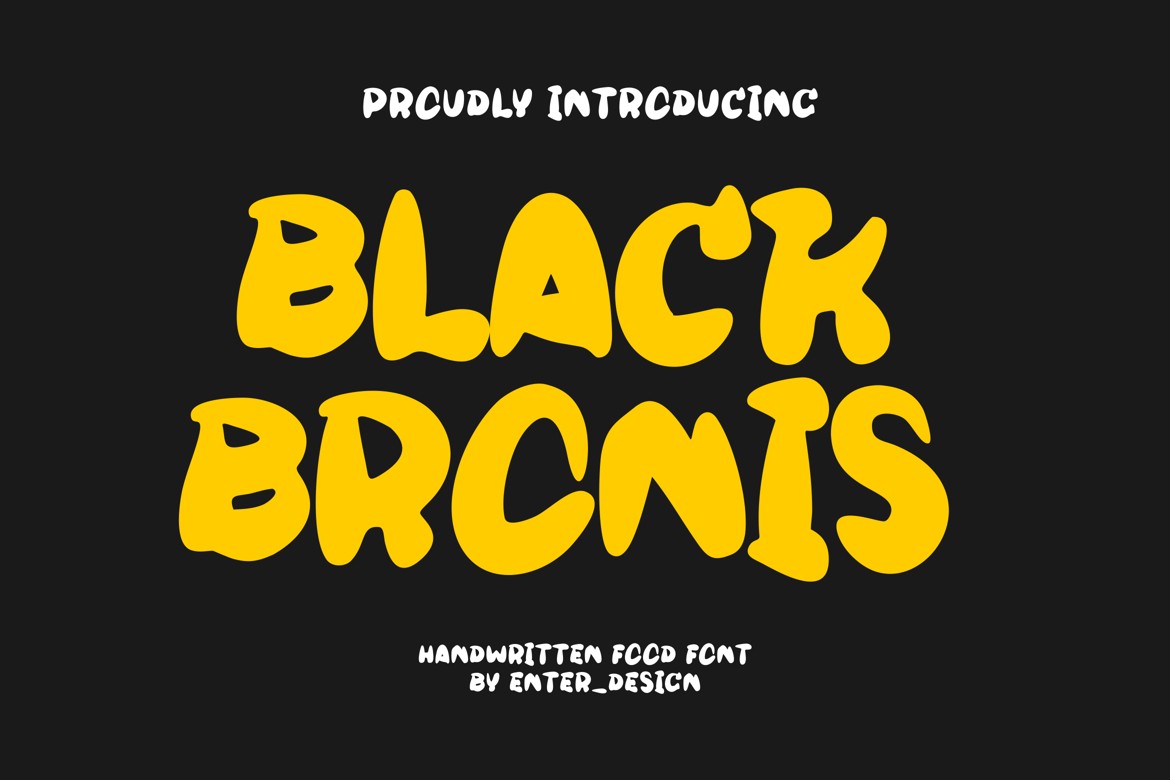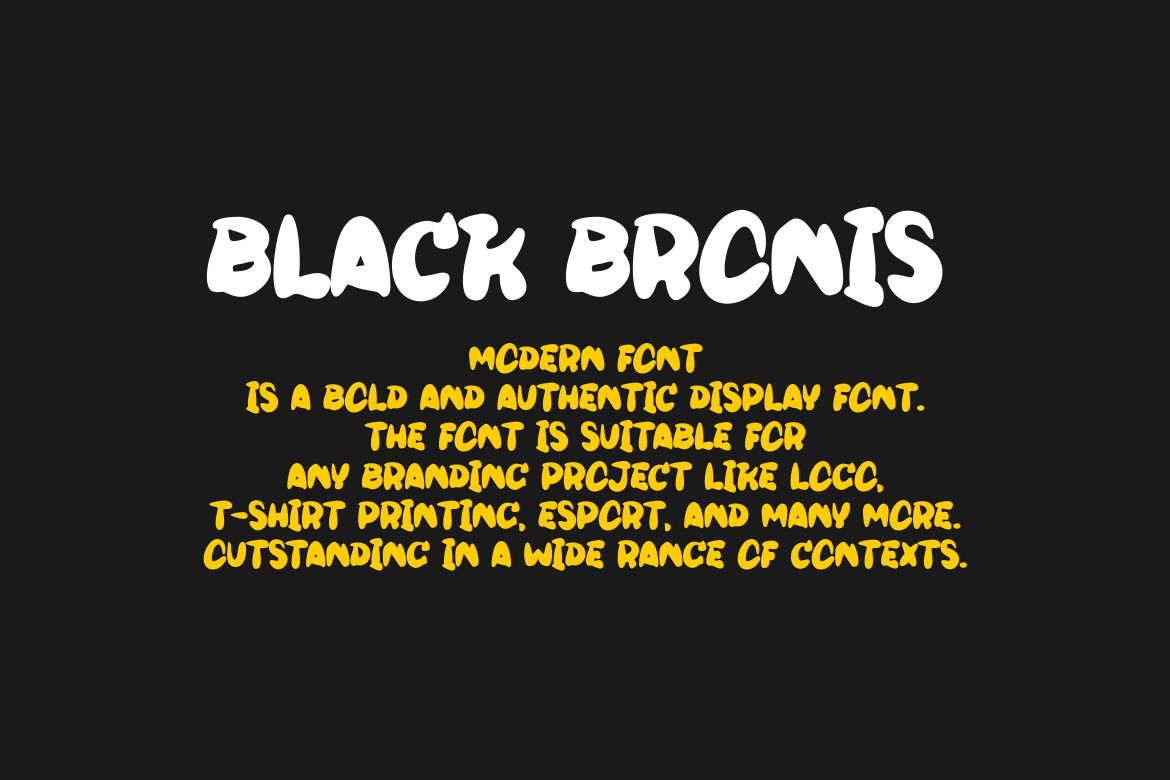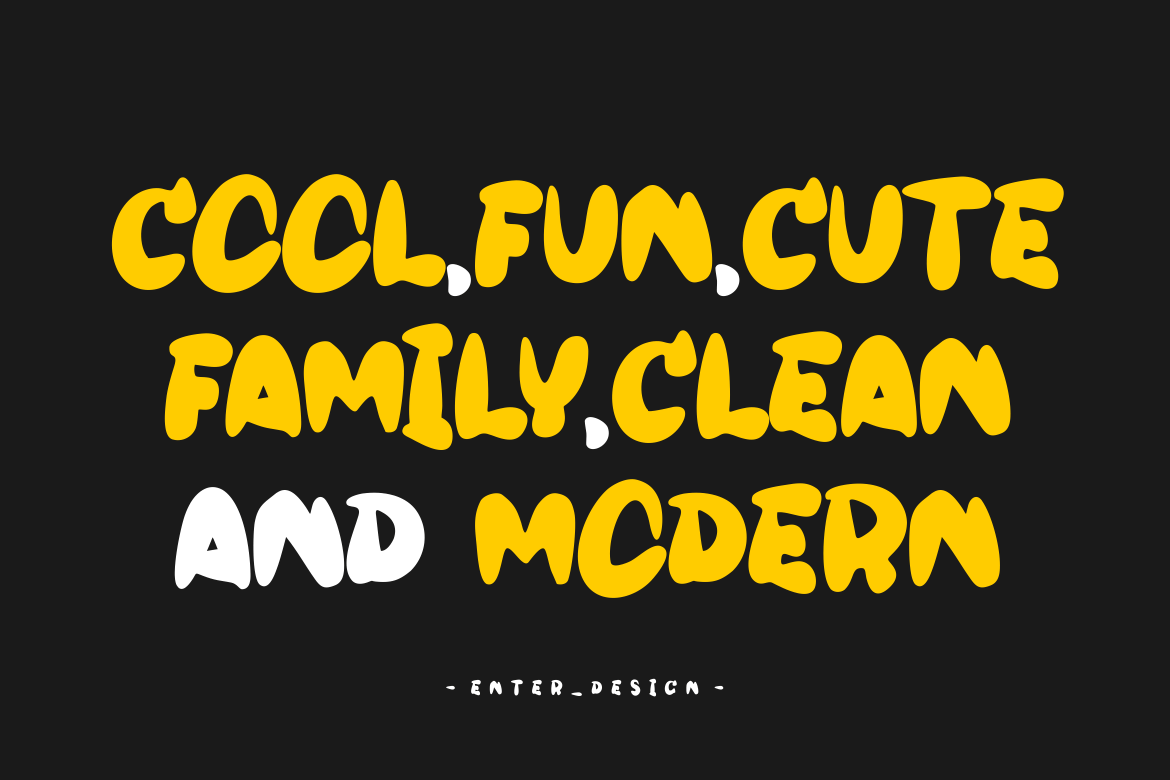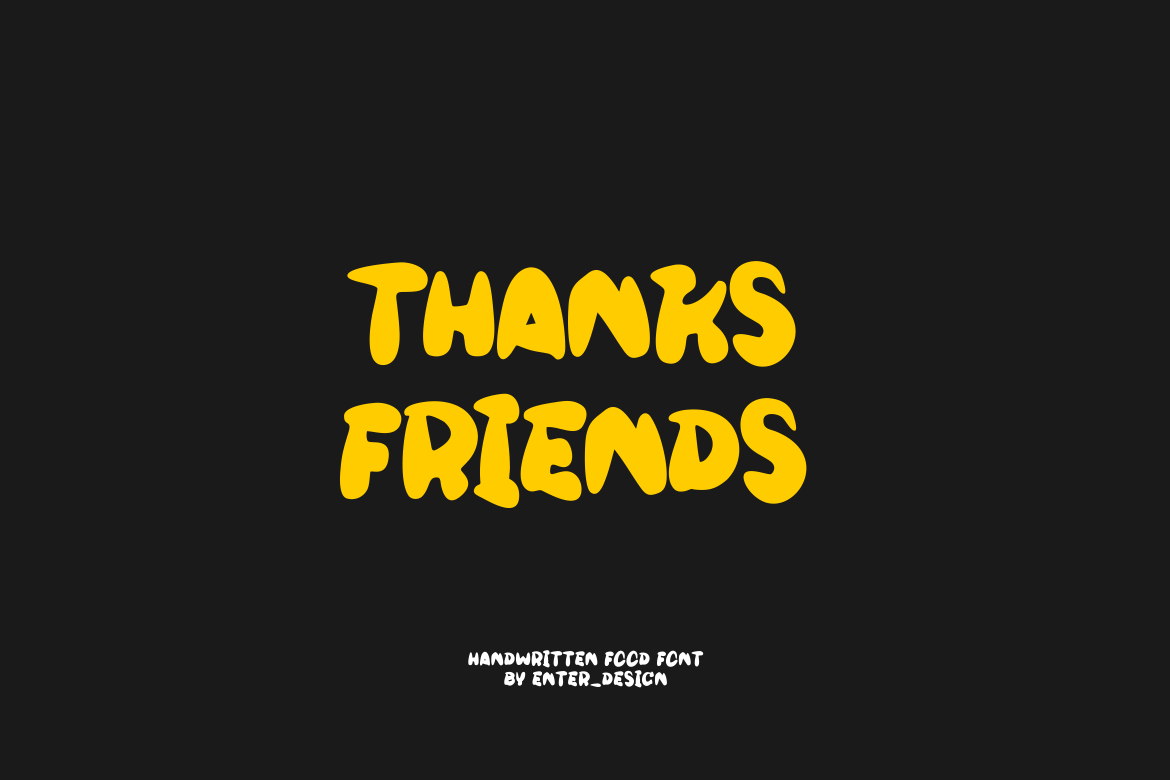
Black Bronis Font
Black Bronis Font – Modern Font is a bold and authentic display font. The font is suitable for any branding project like logo, esport, and many more. outstanding in a wide range of contexts.